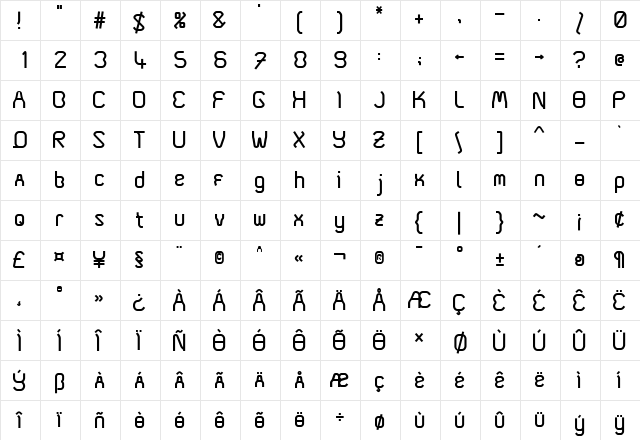
Coma01 Medium Font Preview
Coma01 Medium
Coma01 Medium Font Details
Design Context for Coma01 Typeface
Coma01 takes a measured approach to typography — its balanced proportions and neutral character make it a reliable workhorse for both digital and print work.